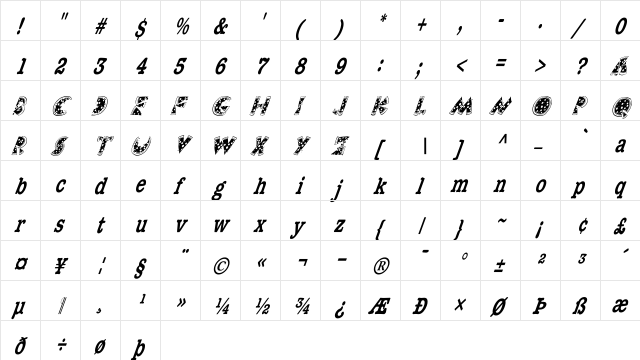
KAPizzaMunch Regular
Design Context for KAPizzaMunch Typeface
KAPizzaMunch is a composed and adaptable typeface that performs quietly and consistently across a wide range of design contexts.